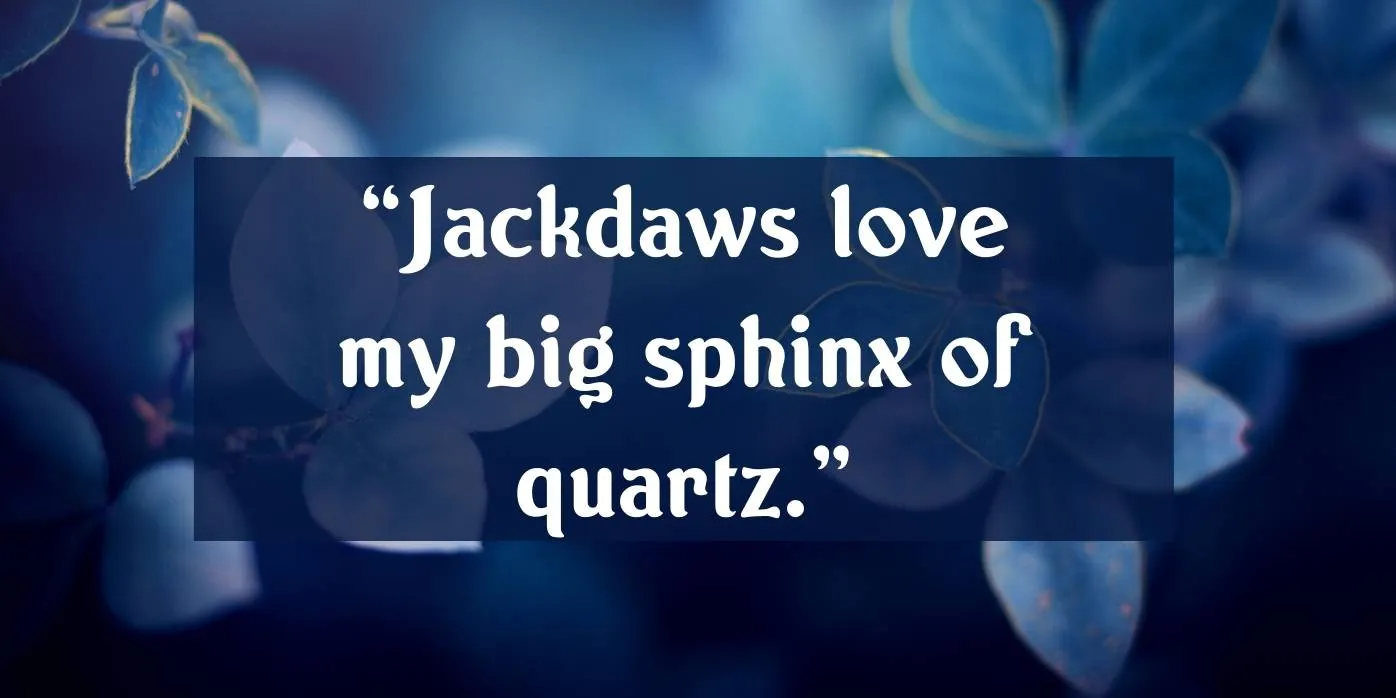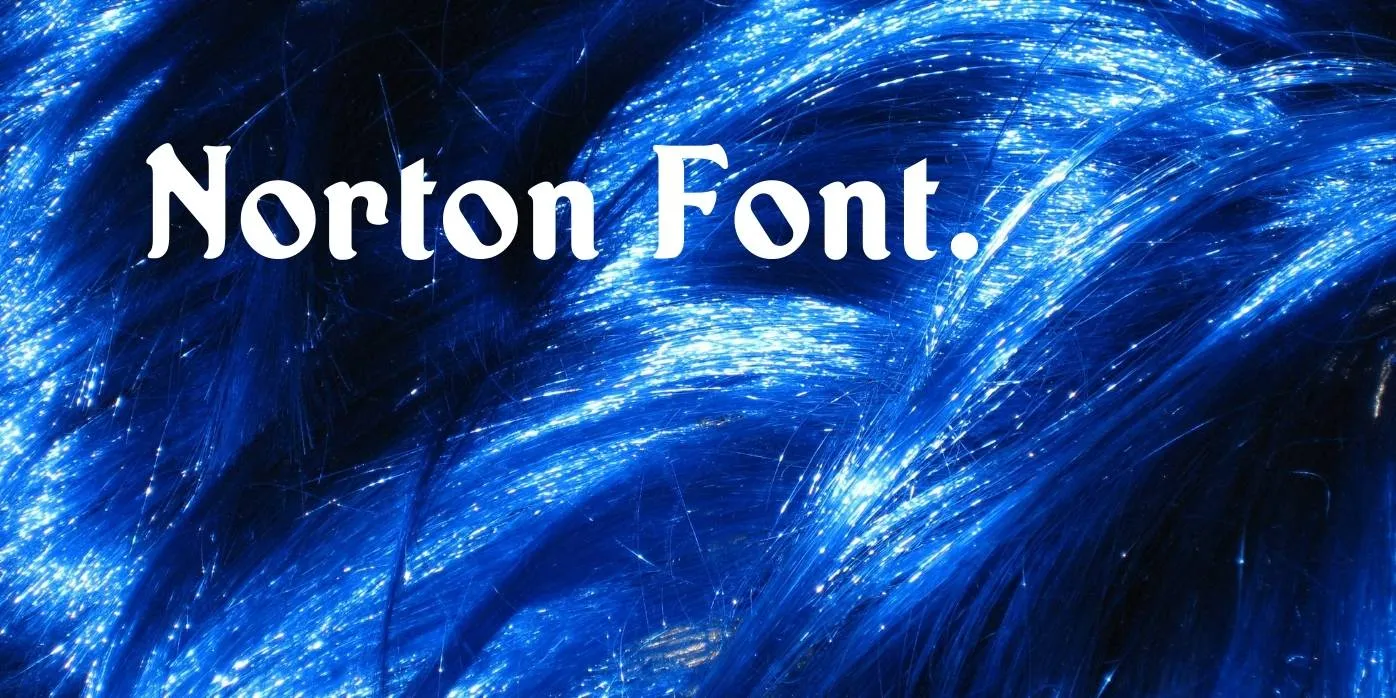
Norton Font
Norton Font was developed and published by Keith Bates. This amazing typeface belongs to the Display Typeface. It is a very strong and confident font that is perfect for headlines, posters, and other large-scale applications. The typeface has a very solid feel to it and its characters are highly readable.
One of the best things about this typeface is that it has clean textures. So, if you are looking for a strong, confident, and highly readable font for your next project, be sure to check out this classic typeface. This typeface provides the facility of an Online tool generator by which you can create many graphic designs.